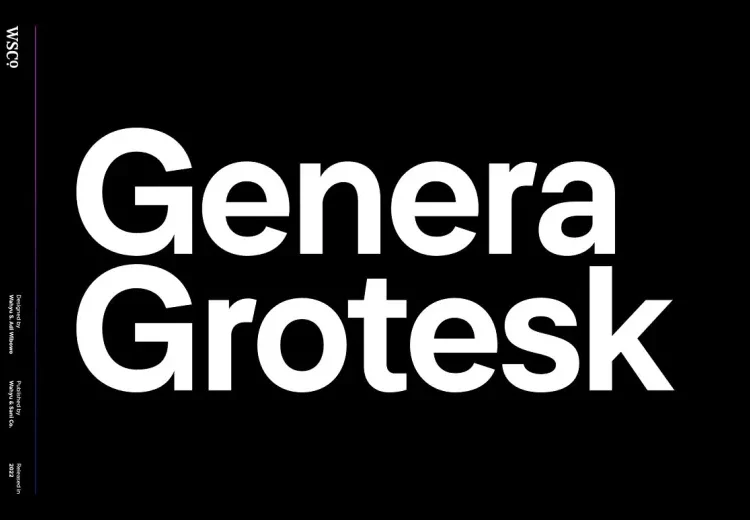
Genera Grotesk Font
Genera Grotesk is an innovative and modern sans serif font family, initially unveiled in late 2019. This complete revision of the Genera typeface introduces several enhancements, including increased aperture size, brand new letterforms, and an italic style. With a broad weight distribution ranging from Thin to Extra Black, Genera Grotesk offers greater freedom and flexibility in design, making it ideal for a wide variety of applications.
Perfect for projects that require a clean, contemporary look, Genera Grotesk is available in multiple font options to cater to different needs.